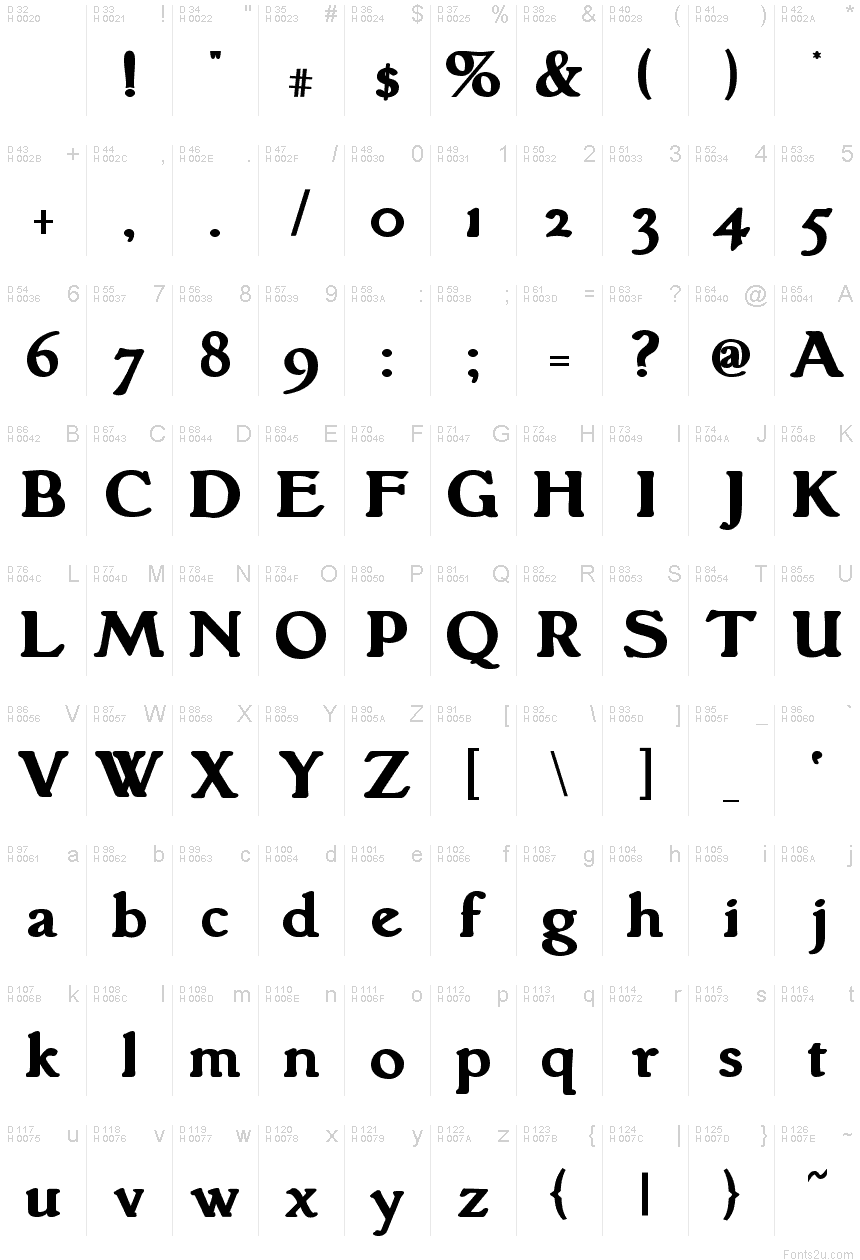
Grantham Bold
Grantham Bold font by PJL is a free serif typeface with a wonderfully inky, hand-printed feel. Its chunky curves, softly flattened edges, and slightly uneven rhythm give every word a friendly weight, as if it’s been stamped onto the page rather than typeset. The letters feel sturdy yet warm, with rounded details that keep the bold forms from looking harsh or mechanical.
Using Grantham Bold, your titles and logos gain a grounded, vintage character that still reads clearly at a glance. This free font works beautifully for book covers, posters, café or bakery branding, packaging, event flyers, and characterful logo marks. Try pairing Grantham Bold with a clean geometric sans for small text, and let Grantham handle the big, attention-grabbing lines.